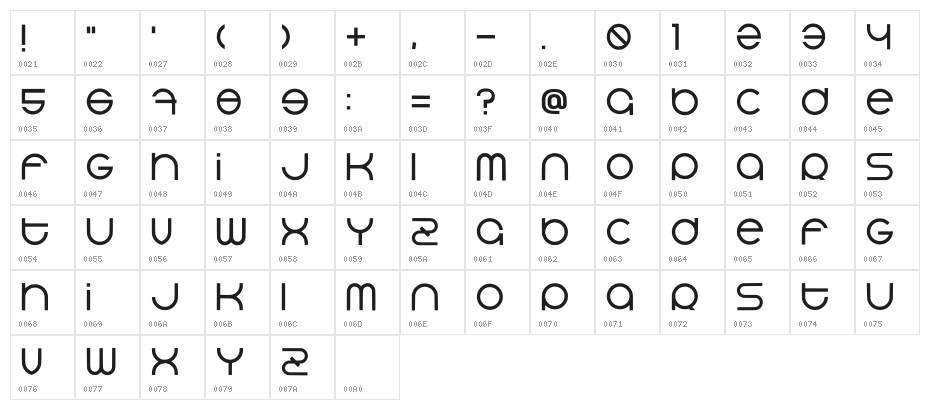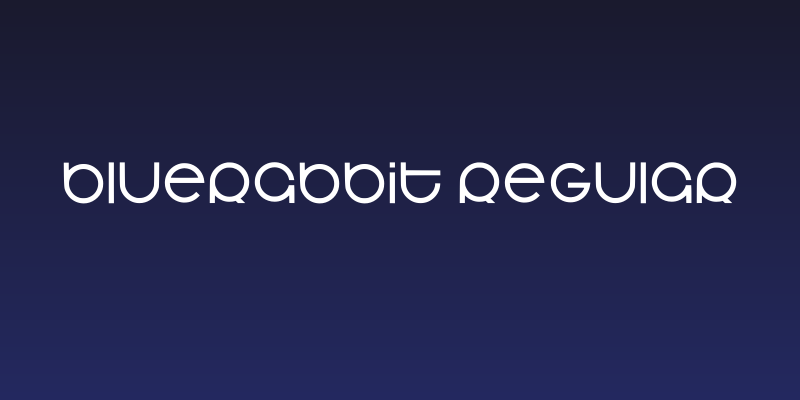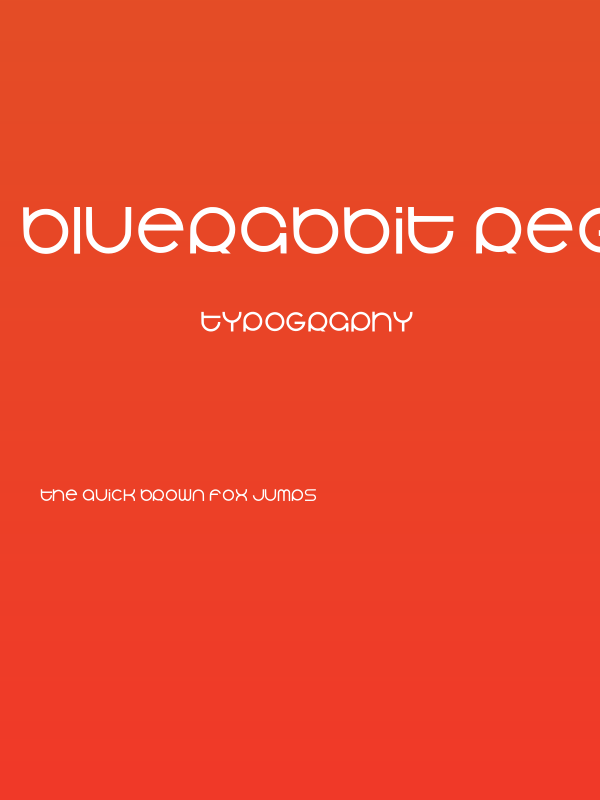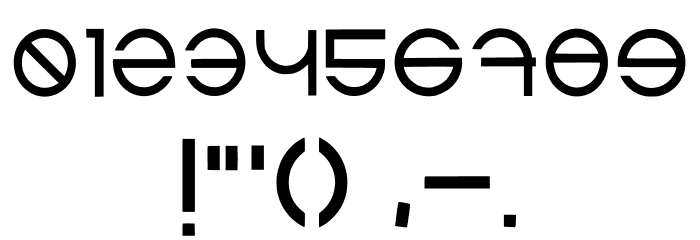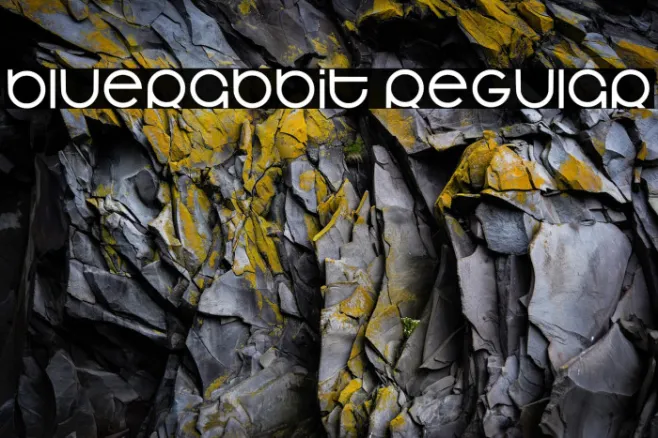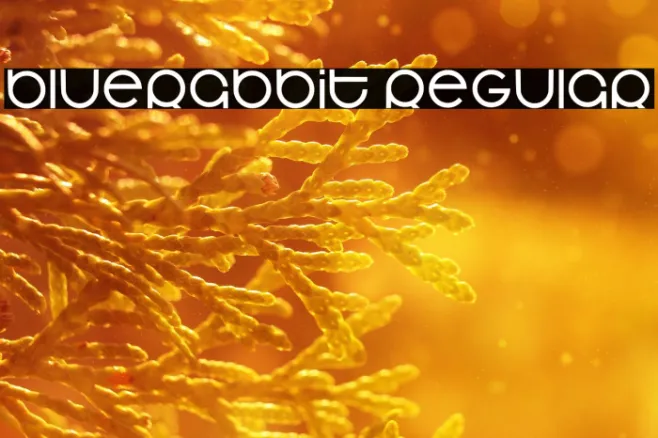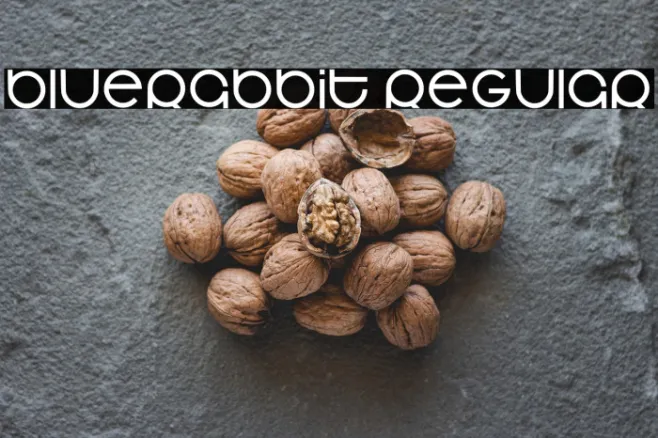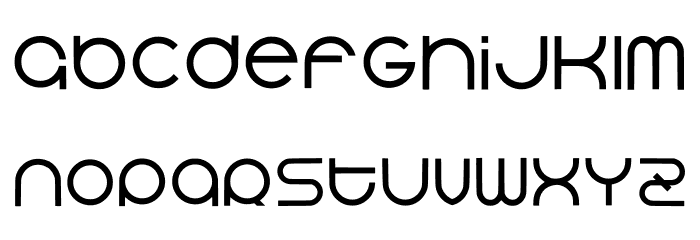
Bluerabbit Regular Font
Bluerabbit Regular Description
This font features a modern and geometric design, characterized by its clean lines and circular elements. The letters are crafted with a consistent stroke width, giving it a uniform appearance. The rounded edges and open counters create a sense of openness and readability, while the unique shapes of certain characters, such as the 'R' and 'Q', add a distinctive flair. The numerals and special characters maintain the same geometric style, ensuring cohesion across all elements. This font is well-suited for contemporary design projects that require a sleek and futuristic aesthetic.